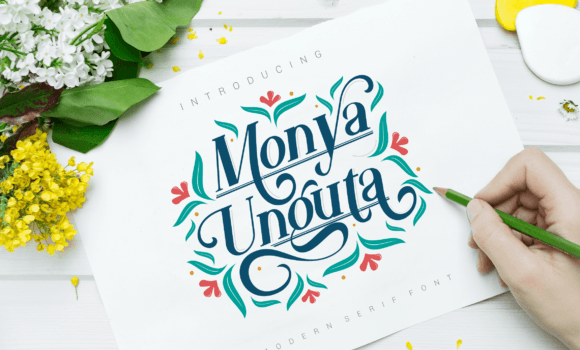
Monya Unguta Font – Free Download Introduction to Monya Unguta Font Monya Unguta is a bold and authentic serif font, suitable for any branding project like logo, t-shirt printing, export, and many more. 📸 Preview Gallery 4 images 📌 Product